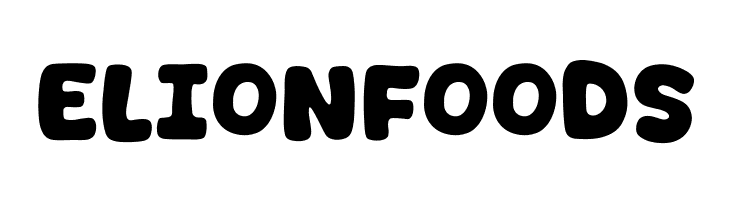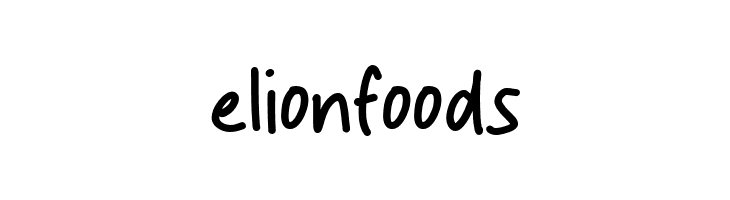
An elegant, flowing script font with ornate uppercase and connected lowercase letters.
A modern, handwritten font with elegant, flowing lines and a personal touch.
A lively, cursive script font with medium contrast and fluid strokes.
A modern, flowing cursive font with elegant and smooth letterforms.
A classic serif font with elegant strokes and high contrast.
An ornate, decorative font with intricate flourishes and a modern script style.
A bold, expressive script font with dynamic curves and artistic flair.
A modern, elegant script font with fluid, cursive letterforms.
A dynamic, handwritten font with fluid strokes and a casual, artistic style.
A dynamic brush script font with bold, expressive strokes and a hand-painted feel.
A dynamic brush script font with expressive, fluid strokes.
An elegant, flowing font with swash elements and a calligraphic style.
A flowing, elegant script font with swash elements and a handwritten style.
An elegant script font with intricate loops and swirls, perfect for sophisticated designs.
An elegant script font with flowing, ornate cursive letters and intricate swashes.
A bold, cursive font with dynamic strokes and a lively, stylish appearance.
A cursive, handwritten font with elegant, flowing strokes.
A flowing, cursive script font with a casual, handwritten style.
A delicate, handwritten script font with fluid, connected strokes.
A dynamic and fluid cursive script font with elegant, interconnected letters.
A bold, playful font with rounded, bubbly characters and a whimsical style.
A dynamic handwritten font with fluid, expressive letterforms and elegant contrast.
An ornate, decorative blackletter-inspired font with intricate flourishes.
A lively and expressive handwritten font with fluid, dynamic strokes.
A modern, elegant script font with a flowing, cursive style.
A playful, handwritten font with elongated, irregular characters.
A modern, geometric font with clean lines and a sleek, minimalist design.
A bold, geometric font with a military-inspired, structured design.
A bold, hollow, geometric font with a modern and futuristic style.
A bold, geometric font with a three-dimensional effect and strong presence.
A sophisticated and elegant font with modern, slender strokes and subtle contrast.
A sophisticated script font with flowing, connected strokes and ornate details.
An elegant, italic script font with a calligraphic style.
A stylish, handwritten font with elegant, flowing lines and a modern touch.
A bold, high-contrast font with rounded serifs and a modern, decorative style.